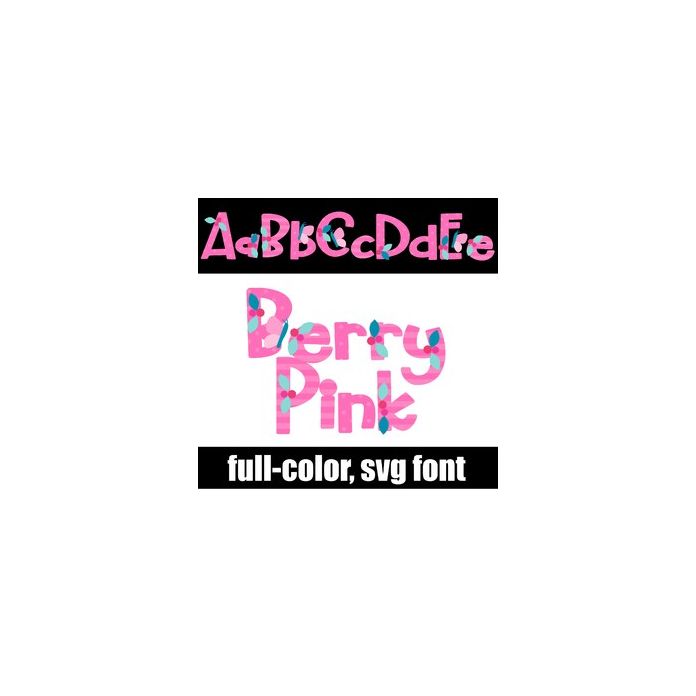
This full-color font features pink striped and polka lettering, pink berries and butterflies. There is an alt version you can access through your system's character map that contains additional colors of all the letters.